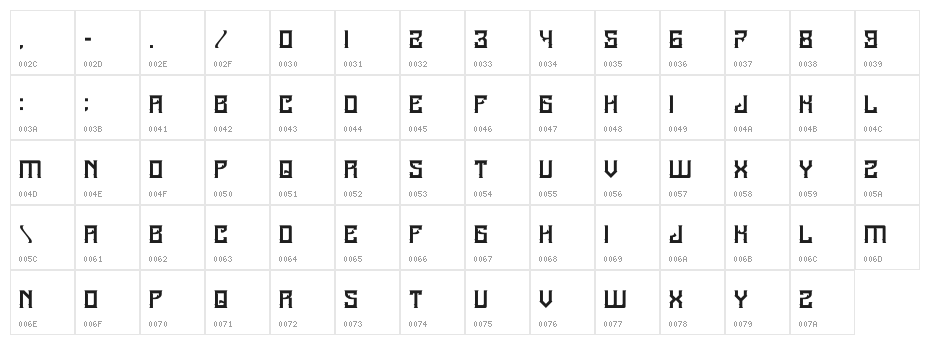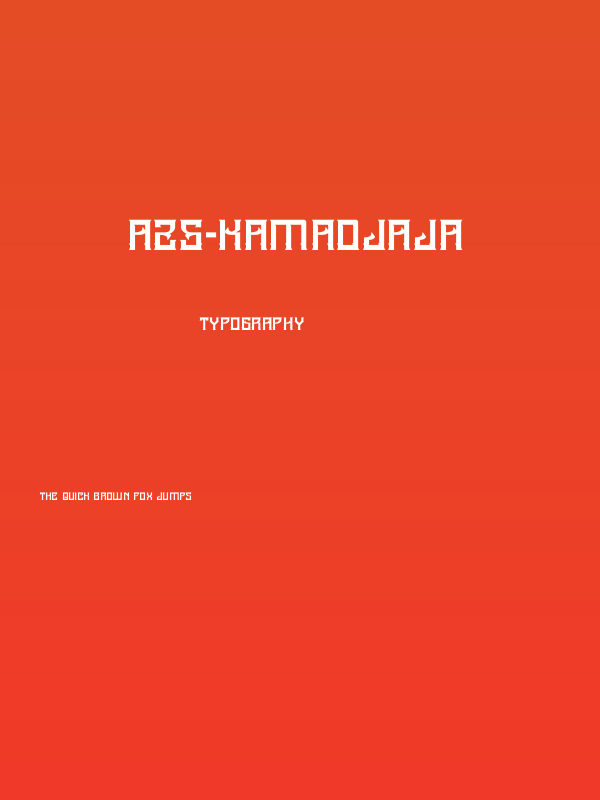
A25-KAMADJAJA Font
A25-KAMADJAJA Description
This font features a bold, geometric design with sharp angles and a distinct, edgy appearance. The characters are constructed with a combination of thick vertical and horizontal strokes, creating a strong visual impact. The angular cuts and pointed serifs give it a modern and industrial feel, while maintaining a sense of balance and uniformity. The uppercase and lowercase letters share a consistent style, with the numerals and special characters complementing the overall aesthetic. This font is ideal for projects that require a bold and striking visual presence.
| Proposed Projects | Ideal for branding, posters, album covers, and any design requiring a bold statement. |